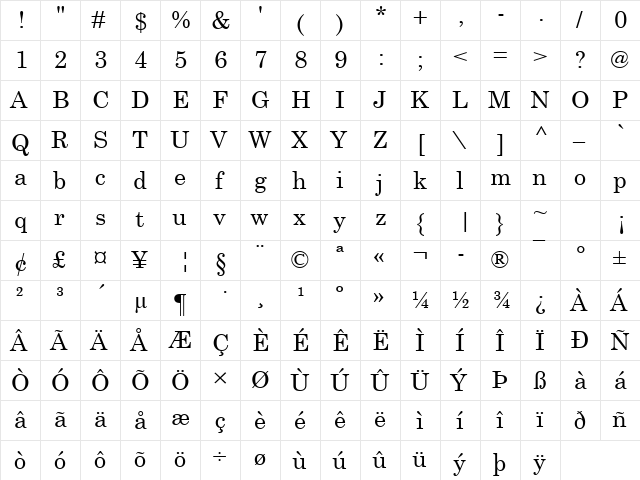
Century Schoolbook Regular
| Foundry | Ascender Corporation |
| Designer | Morris Fuller Benton |
Design Context for Century Schoolbook Typeface
Century Schoolbook takes a measured approach to typography — its balanced proportions and neutral character make it a reliable workhorse for both digital and print work.